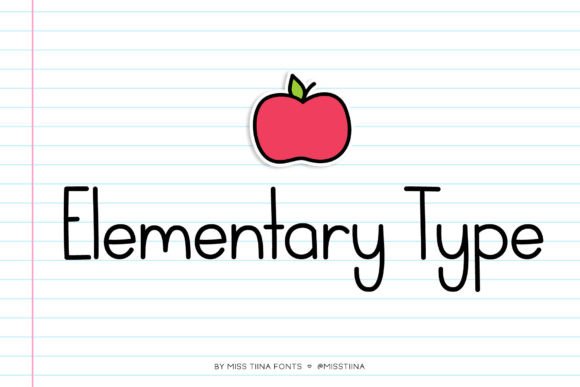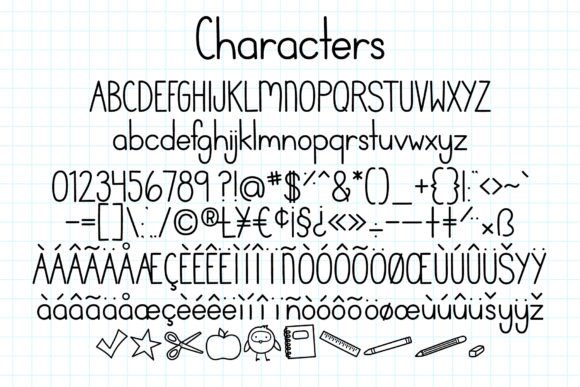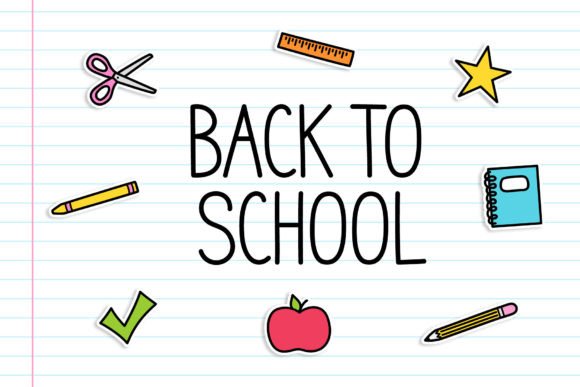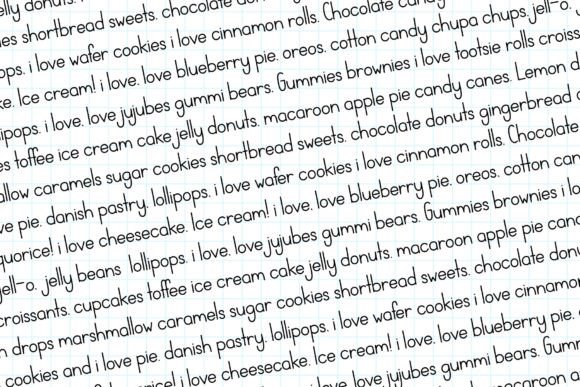
Elementary Type Font
About the Elementary Type Font
Introducing the Elementary Type Font, a beautifully crafted typeface designed to elevate your creative projects. Elementary Type is a cute, friendly and playful display font perfect for school projects, lesson sheets, children’s books, stationery, planners, and many other various projects. This font is specially crafted for children and teachers and also it includes 10 super cute doodles.
Its playful, rounded forms make it ideal for children’s books, branding for educational products, or playful packaging designs. However, due to its low x-height and relatively large ascenders/descenders, it’s unsuitable for extended body text or UI elements where readability is paramount.
Elementary Type’s friendly personality pairs well with clean sans-serif fonts like Open Sans for body copy or a more geometric sans-serif like Futura for a modern contrast. For a slightly more sophisticated feel, consider pairing it with a delicate script font for accents, keeping the overall design balanced.
The font exudes a cheerful, approachable energy, best suited for projects targeting a young audience or brands emphasizing fun and approachability.